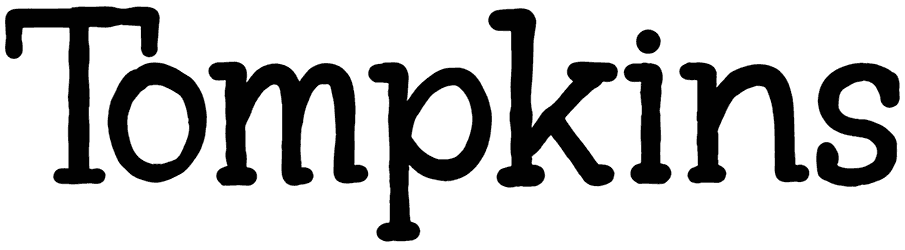
Tompkins Font
Tompkins is a classic slab serif font that will put your customers in a nostalgic frame of mind. Use any of the four available styles or weights of this handwritten font right now for your special occasion designs, websites, apps, etc.